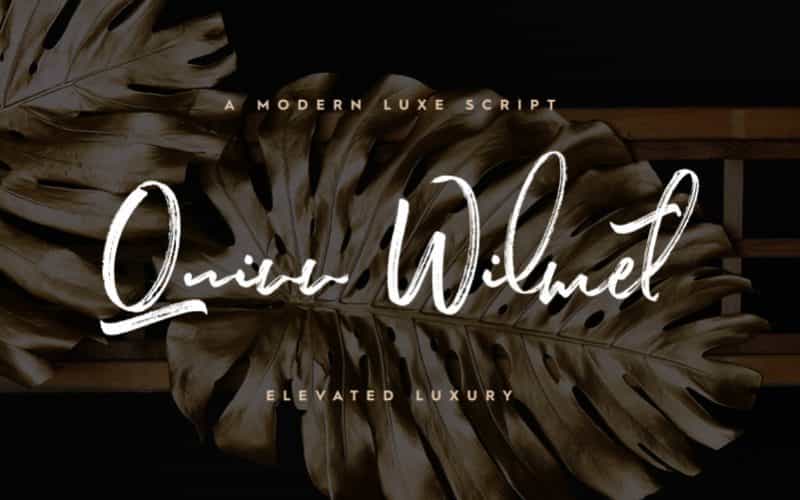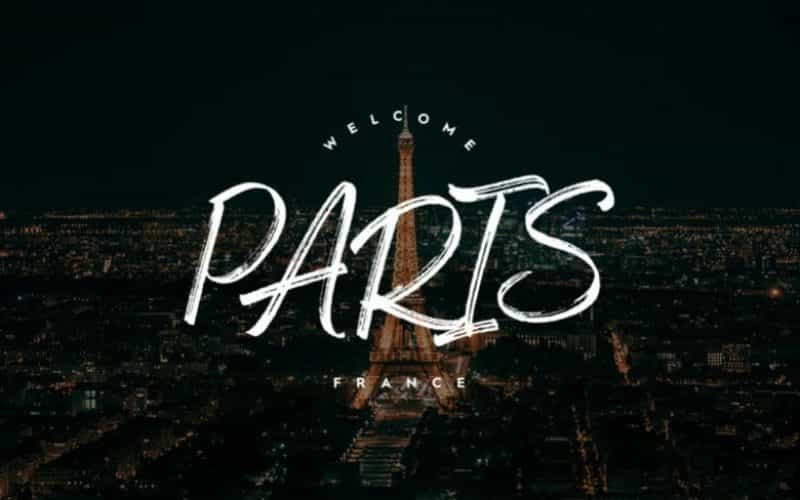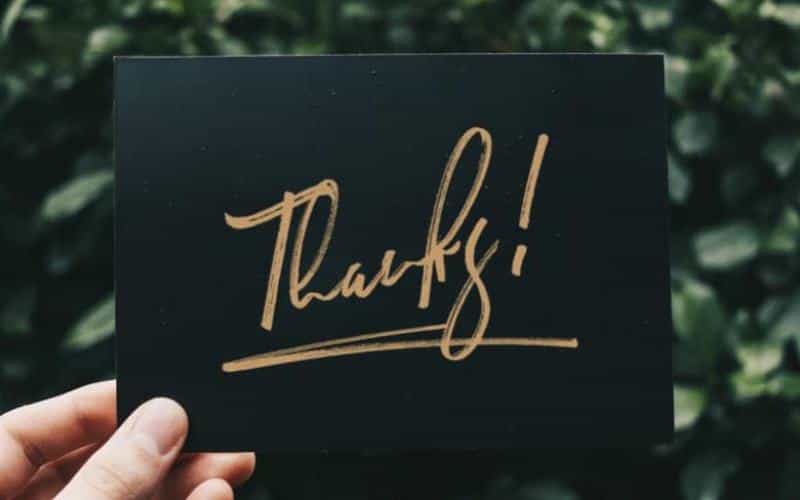
Quinn Wilmet is a big and luxurious hand-made script font that has a solid set of basic characters and 4 sets of alternative characters with additional swashes. You will be able to generate a countless number of custom type combinations by means of this font pack.